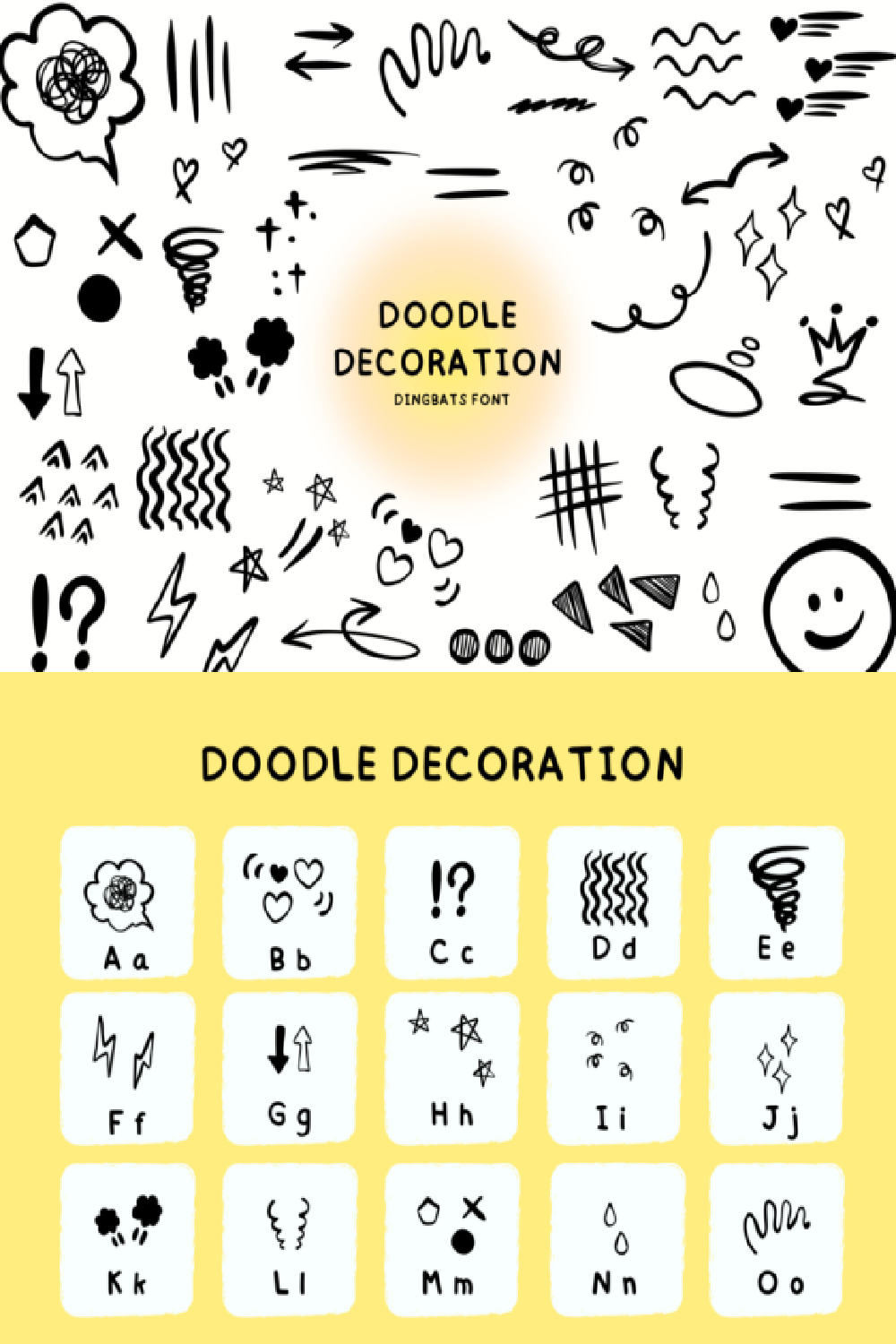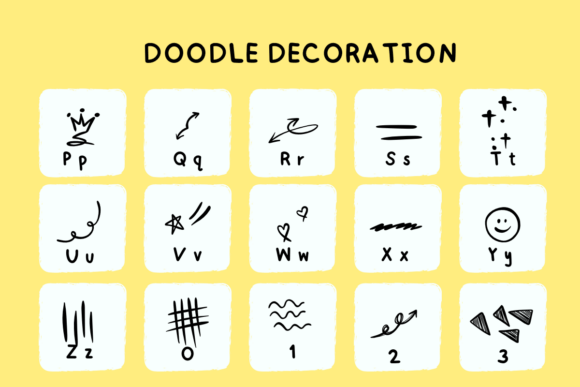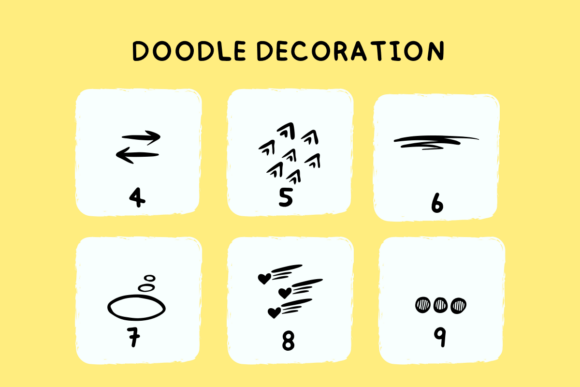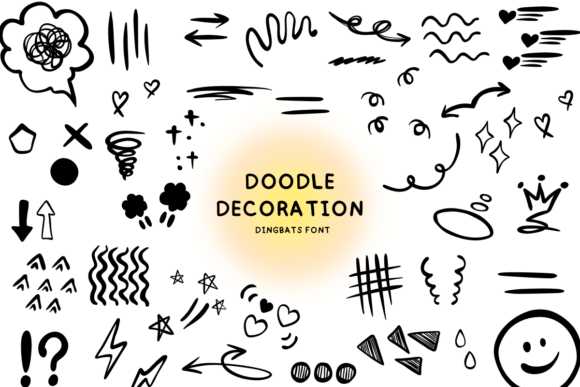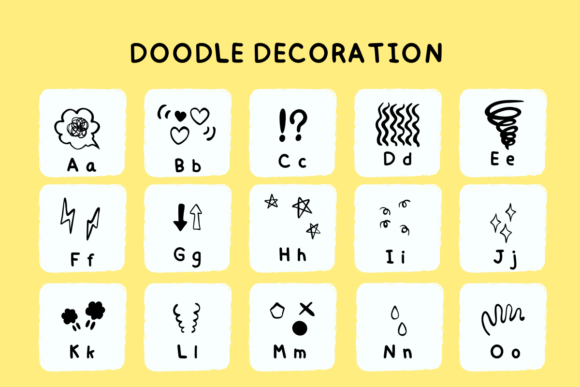
Doodle Decoration Font
About the Doodle Decoration Font
Introducing the Doodle Decoration Font, a beautifully crafted typeface designed to elevate your creative projects. Unleash your creativity with Doodle Decoration, an artistic dingbats font designed to inspire. Perfect for infusing a playful touch to your scribbled notes or giving an imaginative flare to your greeting cards, Doodle Decoration goes beyond the ordinary. With its versatility, it can also add a unique charm to a wide range of designs from eye-catching banners and compelling content to stylish mugs, bespoke cards, trendy shirts and elegant stationery. Even your social media posts can get a dash of artistic whimsy using Doodle Decoration Elevate your design game with this whimsical font.